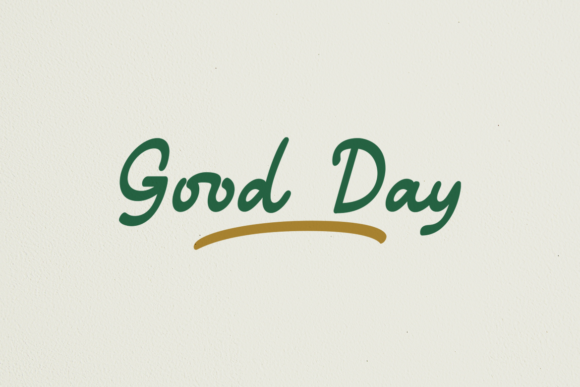
Good Day Script: Infusing Warmth into Modern Design
There’s a certain magic in a design that feels both personal and polished. It’s the difference between a generic template and a piece that seems to speak directly to you. Achieving that balance often hinges on the details, and few details are as foundational as your choice of typeface. If you’re searching for a premium font that carries the soul of a handwritten font with the reliability of a professional design asset, let me introduce you to Good Day Script. This isn't just another script font; it's a tool for building connection.
Understanding the Personality of Good Day Script
At first glance, Good Day Script feels familiar and inviting. Its letterforms are fluid and organic, mimicking the natural flow of a brush or pen held by a confident hand. You’ll notice elegant swashes and a generous x-height, which gives it a contemporary edge. This isn't a vintage or overly formal calligraphy; it’s a modern typography choice that feels fresh and relevant. The font strikes a careful balance—it’s expressive enough to show personality but structured enough to remain legible, making it a versatile creative font for a wide array of applications.
Its strength lies in its ability to convey warmth, authenticity, and a touch of elegance without trying too hard. It feels human. This quality makes it particularly effective for projects where you want to establish an immediate, friendly rapport with your audience.
Where Good Day Script Truly Shines: Practical Applications
The real test of any font is how it performs in the wild. Good Day Script excels across the spectrum of creative and commercial projects, adapting its charm to fit the context.
For Branding and Identity
Building a brand identity is about crafting a story, and Good Day Script can be a central character in that narrative. It’s a fantastic choice for logo design, especially for businesses that want to project a friendly, artisanal, or boutique feel. Think of a local coffee roaster, a handmade jewelry studio, a wellness coach, or a children’s boutique. The font immediately sets a tone of care and personal service. When used in marketing materials, it helps maintain that consistent, approachable voice, making the brand feel more relatable and trustworthy.
In Marketing and Digital Spaces
In the fast-scroll world of social media and digital marketing, capturing attention is everything. Good Day Script works beautifully for social media graphics, pulling the eye to a key message or a call to action. It’s perfect for creating impactful quotes, announcing sales, or adding a personal signature to a digital ad. For web design, consider using it sparingly for headlines, hero text, or section titles to inject personality without sacrificing the readability of your body copy, which should typically use a clean sans serif font or serif font.
Across Print and Publishing
Its applications in the physical world are just as strong. For editorial design, it can bring life to magazine feature headers or pull quotes. In packaging design, it can highlight a product’s artisanal quality or a special ingredient. It’s a natural fit for wedding invitations, greeting cards, and event posters, where a personal touch is paramount. Even in corporate settings, it can be used thoughtfully for internal newsletters or event materials to soften the tone and make communications feel more human.
Designing with Intention: How to Use Good Day Script Effectively
Having a great tool is one thing; using it skillfully is another. To get the most out of Good Day Script, a bit of strategic thinking goes a long way.
Pairing for Visual Harmony
The most important rule with any expressive display font is to pair it with something simpler. Good Day Script demands a partner that doesn’t compete. A neutral sans serif font like Montserrat or Lato provides a clean, modern counterpoint. Alternatively, a classic serif font like Garamond or Lora can create a beautiful, timeless contrast. The script becomes the star for headlines and logos, while the secondary font handles the bulk of the text, ensuring your content is easy to read.
Readability and Hierarchy
Context is key for readability. While Good Day Script is designed for clarity, it’s best used for short bursts of text—headlines, titles, logos, and short phrases. Using it for long paragraphs would strain the reader’s eye. This is where visual hierarchy comes in. Use the script font to create a strong focal point, then guide the reader’s eye to the supporting information set in a more legible body font. This not only improves the reading experience but also makes your design look more professional and considered.
Evaluating the Full Package
Before integrating any commercial font into a project, do your due diligence. Check what’s included in the license. Does it cover the specific use you have in mind, like digital ads, merchandise, or client work? Examine the character set. Does it include the alternates, swashes, and ligatures that give Good Day Script its character? Test it thoroughly. Set your headlines, see how the letters connect, and ensure the overall mood aligns with your project’s goals. A font that looks perfect on a type specimen sheet might feel different in the context of your actual design.
Ultimately, Good Day Script is more than just a collection of beautiful letters. It’s a conduit for emotion and tone. It’s a practical design asset that helps bridge the gap between a brand and its audience, transforming standard communications into memorable encounters. When you choose a font like this, you’re not just selecting a style—you’re deciding how your message will feel.